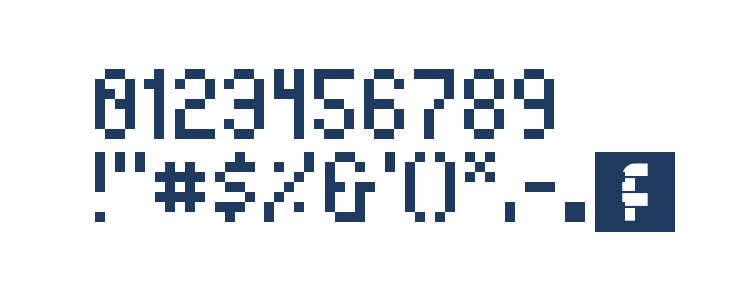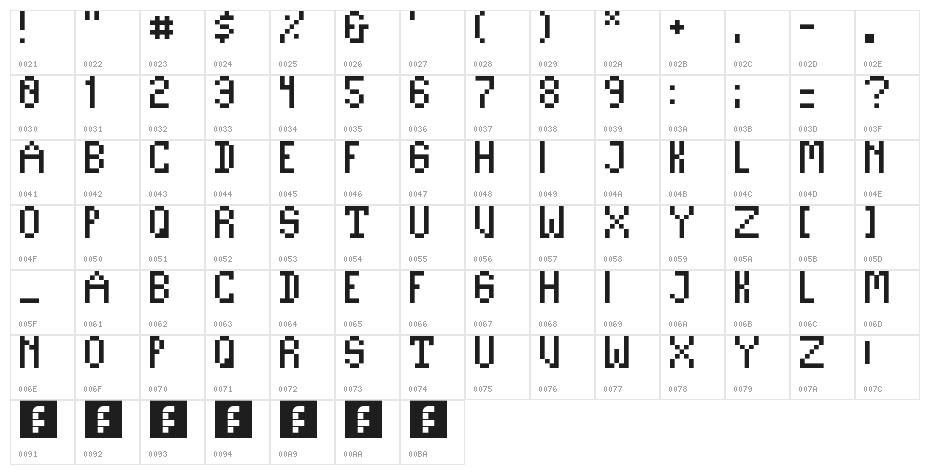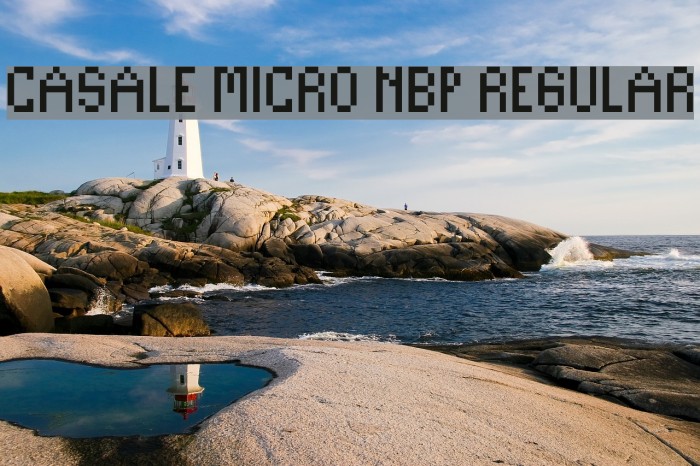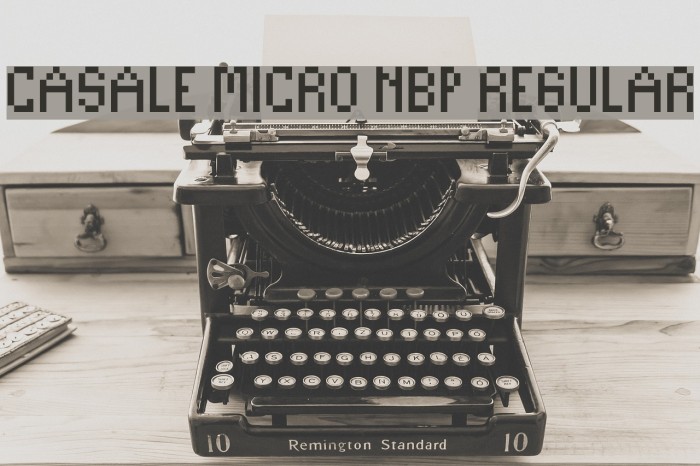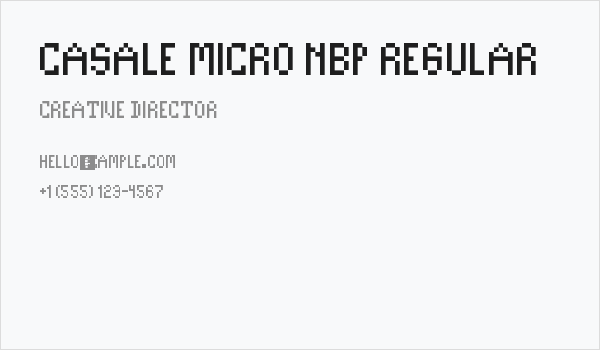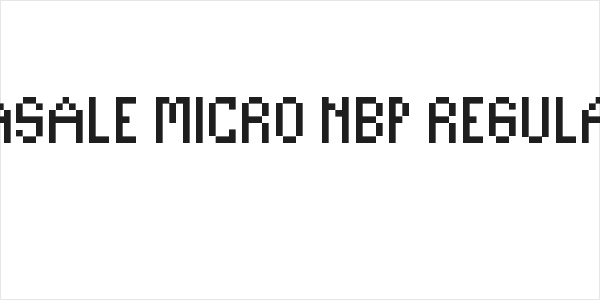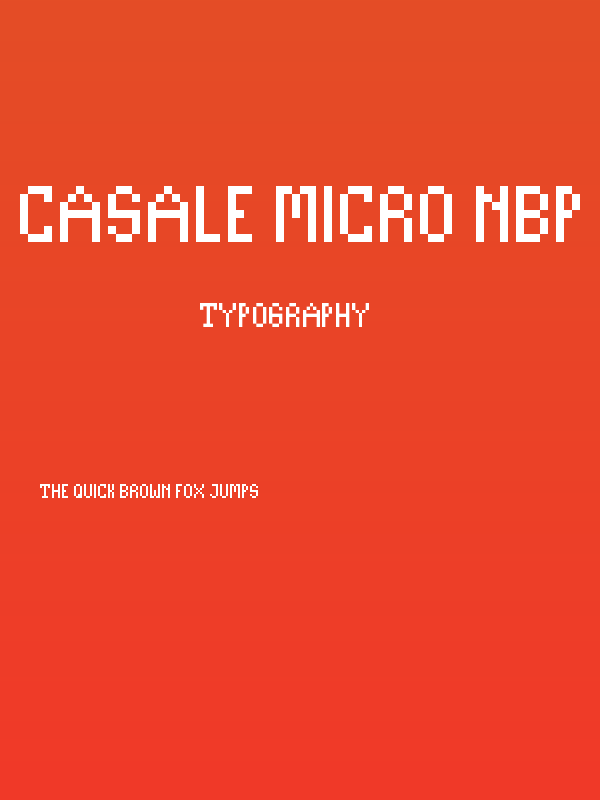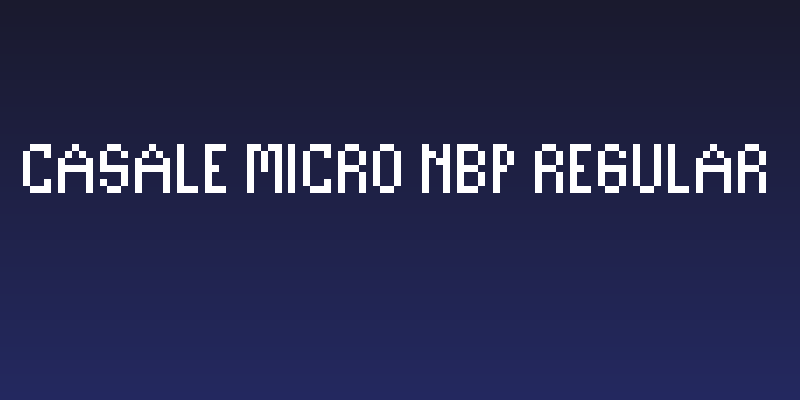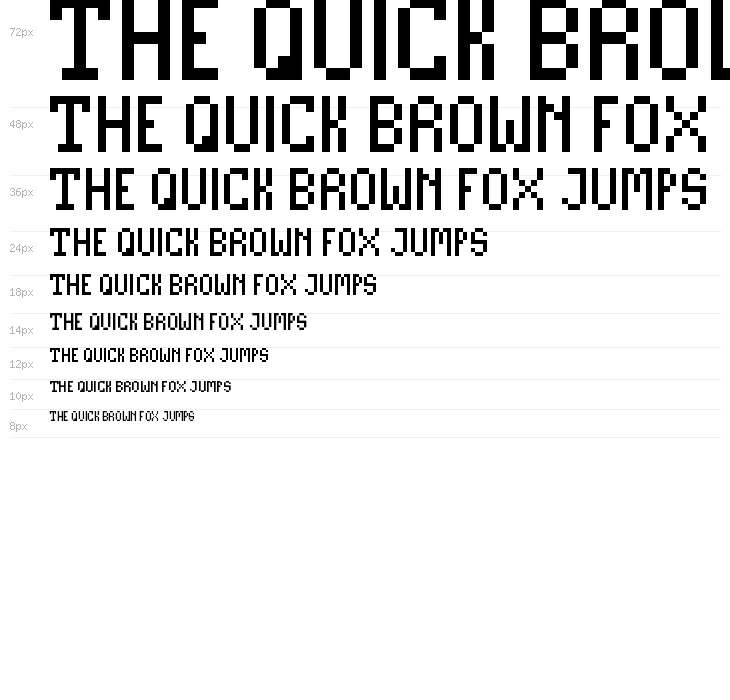
Casale Micro NBP Regular Font
Casale Micro NBP Regular Description
This font features a pixelated, blocky design reminiscent of early digital displays and video games. Each character is constructed with a grid-like precision, giving it a distinctly retro and technological feel. The uppercase and lowercase letters maintain a consistent height, contributing to a uniform appearance. Numbers and special characters follow the same pixelated style, ensuring cohesion across all elements. The font's geometric structure makes it highly legible at various sizes, though it excels in larger displays where its unique style can be fully appreciated.
| Overall Style | Retro, Digital |
| Proposed Projects | Ideal for retro video game designs, digital-themed posters, and tech-related branding. |